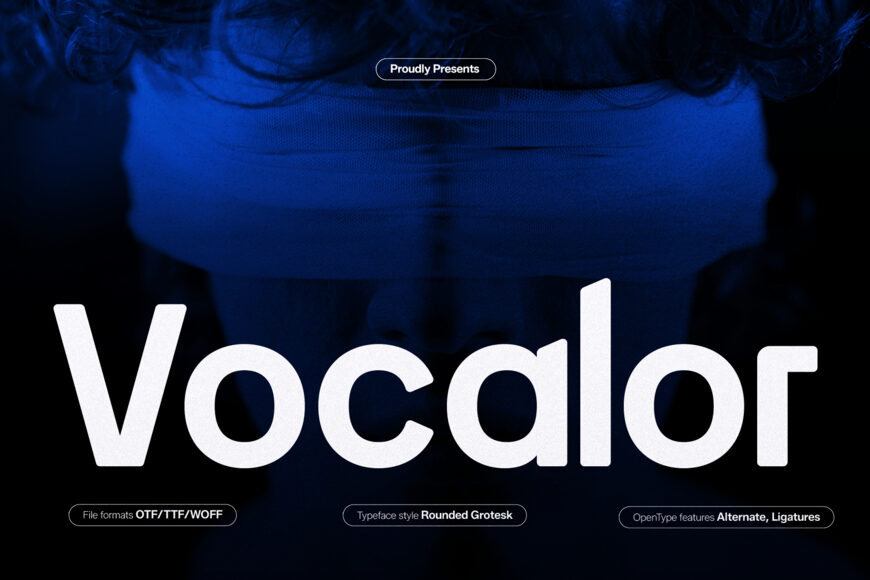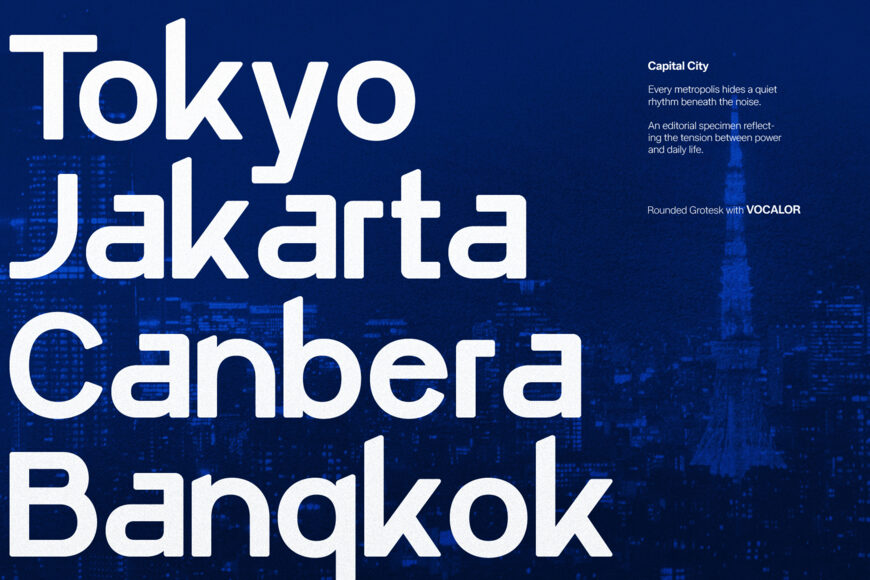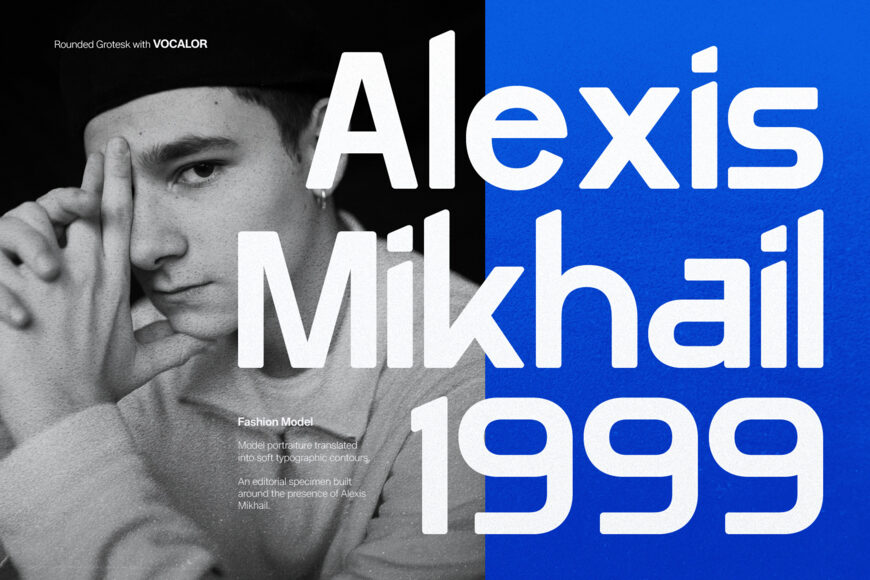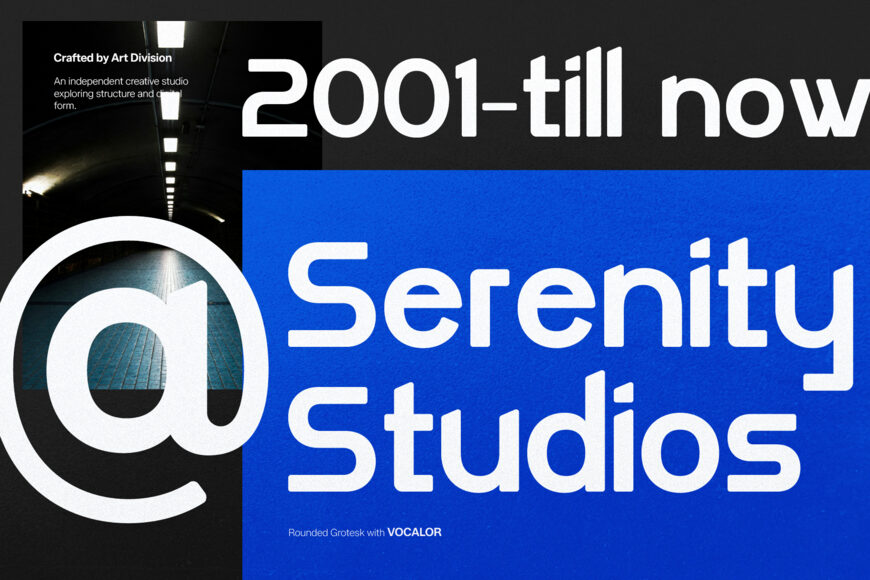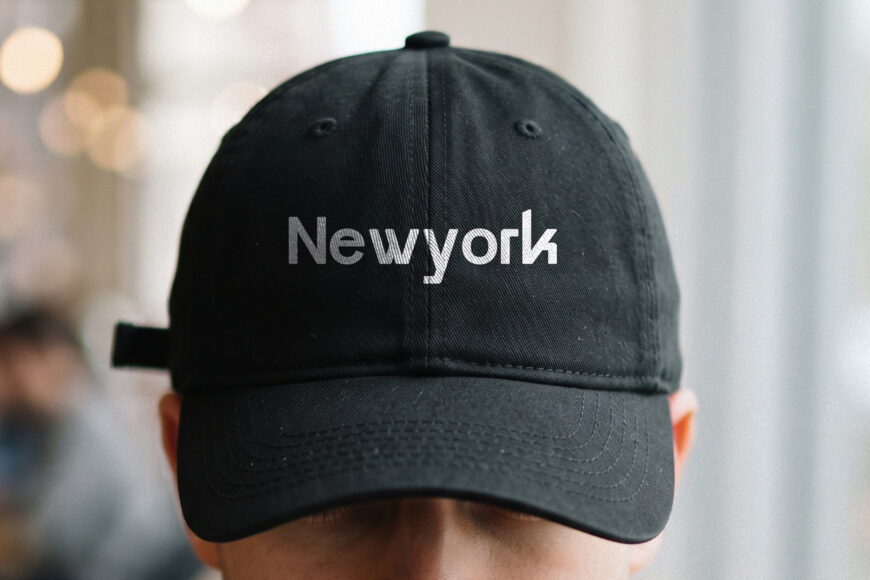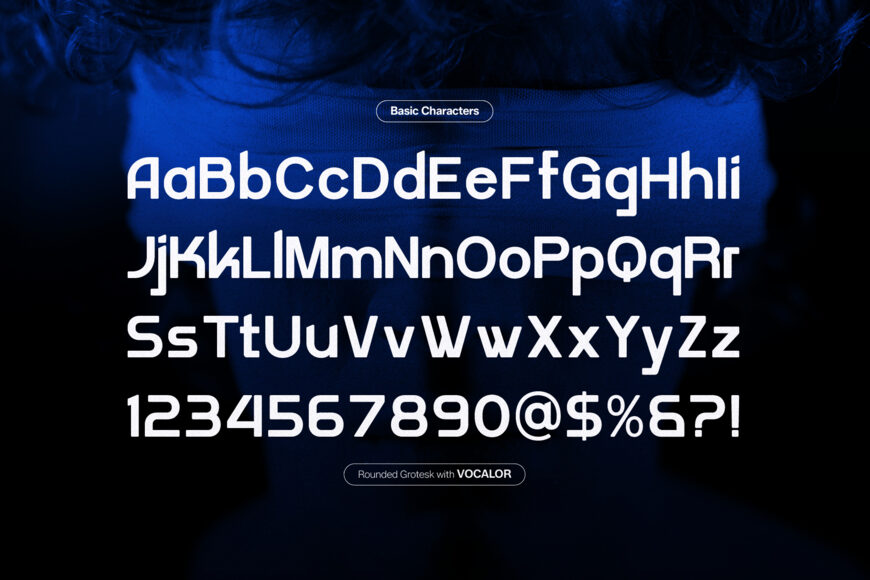
Vocalor Font
Bring ultra-clean geometry, soft modern warmth, and effortless digital polish to your brand with Vocalor! Designed as a rounded grotesk typeface, Vocalor combines clean geometric structure with gently softened terminals and open counters for superior legibility.
Ideal for modern tech branding, mobile app UI/UX, corporate logos, minimalist web headers, fashion editorial layouts, product packaging, and clean Cricut or Silhouette craft SVG projects!